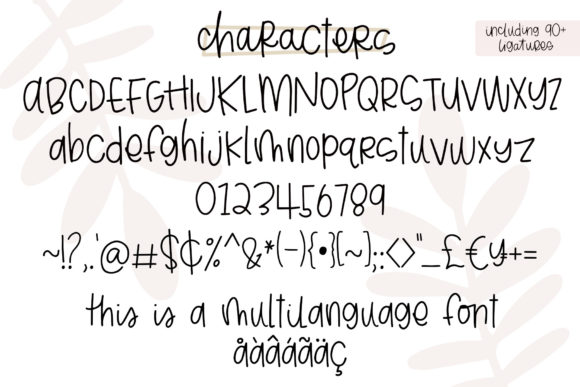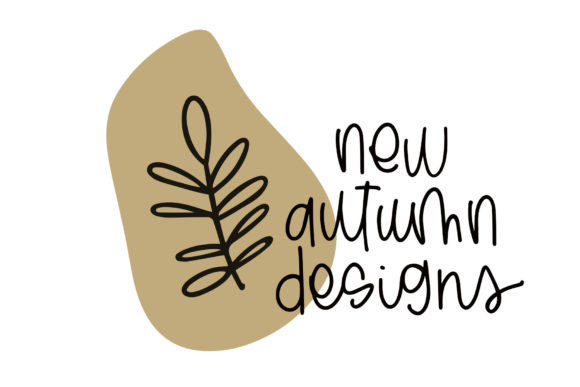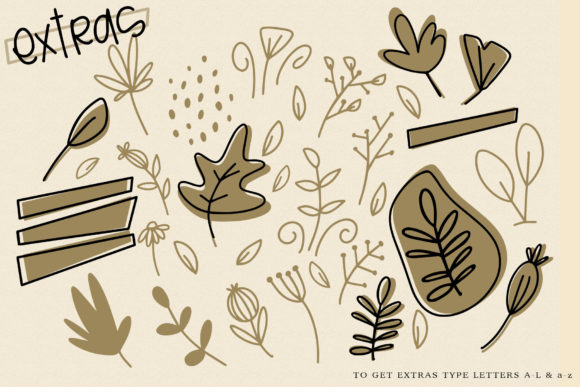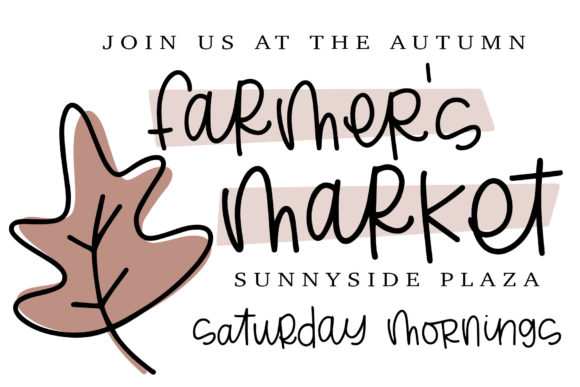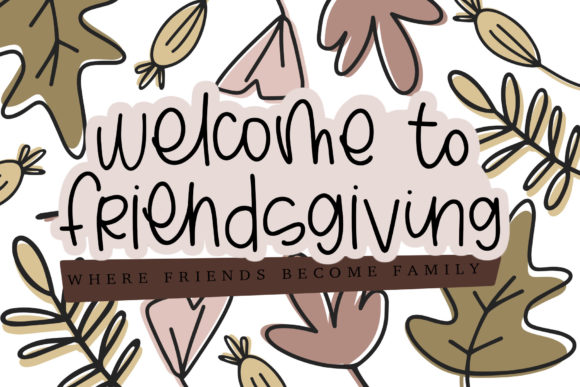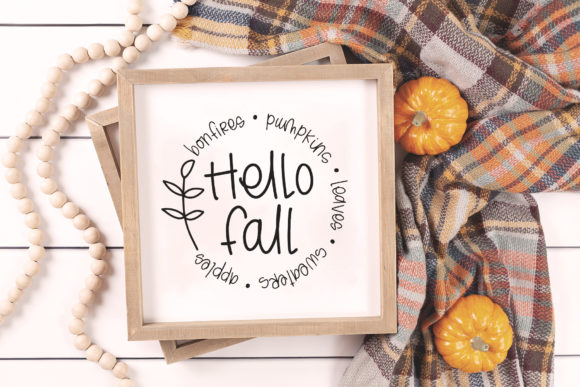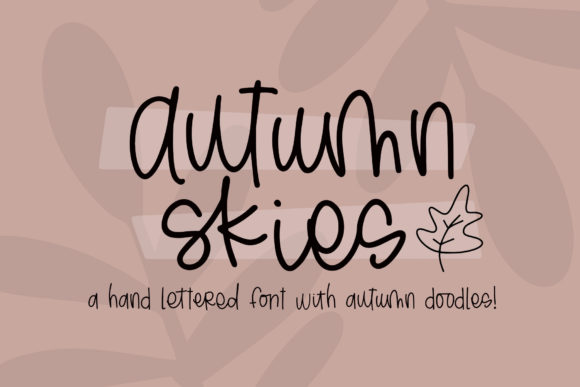
Introducing Autumn Skies Font: A Whimsical Script Font for Your Creative Projects
Are you a designer, crafter, or creative looking for a font that can add a touch of whimsy and elegance to your projects? Look no further than the Autumn Skies Font. This beautiful script font features a relaxed theme and a lovely style that is sure to elevate any creation.
What is Autumn Skies Font?
Autumn Skies Font is a digital font designed to capture the essence of a crisp autumn day. With its flowing script and carefree vibe, this font is perfect for a wide range of creative projects, from invitations and greeting cards to blog posts and social media graphics.
Key Features of Autumn Skies Font
- Whimsical Script Style: Autumn Skies Font features a beautiful, handwritten script style that is both elegant and playful.
- Relaxed Theme: The font’s relaxed theme makes it perfect for creating designs that feel casual and approachable.
- Highly Versatile: Whether you’re working on a personal project or a client’s, Autumn Skies Font can be used for a wide range of applications, from digital graphics to print materials.
- Easily Readable: Despite its whimsical nature, Autumn Skies Font is highly readable, even at smaller sizes.
Why You’ll Love Autumn Skies Font
So, what sets Autumn Skies Font apart from other fonts on the market? Here are just a few reasons why you’ll love adding this font to your library:
- Unique Style: Autumn Skies Font has a unique, one-of-a-kind style that will help your designs stand out from the crowd.
- Ease of Use: This font is incredibly easy to use, even for those who are new to design or not tech-savvy.
- Time-Saving: With Autumn Skies Font, you can create beautiful designs in a fraction of the time it would take with other fonts.
- Constantly Updated: The creators of Autumn Skies Font are committed to updating and improving the font, ensuring that it stays relevant and fresh.
How to Use Autumn Skies Font in Your Designs
Now that you know more about Autumn Skies Font, let’s talk about how to use it in your designs. Here are a few ideas to get you started:
- Invitations and Greeting Cards: Use Autumn Skies Font to create beautiful, one-of-a-kind invitations and greeting cards for special occasions.
- Blog Posts and Social Media Graphics: Add a touch of whimsy to your blog posts and social media graphics with Autumn Skies Font.
- Branding and Packaging: Use Autumn Skies Font to create custom branding and packaging for your business or a client’s.
- DIY Projects: Add a personal touch to your DIY projects, such as handmade crafts or home decor items, with Autumn Skies Font.
Tips for Getting the Most Out of Autumn Skies Font
To get the most out of Autumn Skies Font, here are a few tips to keep in mind:
- Pair with Other Fonts: Autumn Skies Font pairs well with a variety of other fonts, so don’t be afraid to get creative and try out different combinations.
- Use it Consistently: To create a cohesive look, use Autumn Skies Font consistently throughout your design.
In conclusion, Autumn Skies Font is a beautiful, whimsical script font that is sure to elevate any creative project. With its relaxed theme, lovely style, and highly versatile nature, this font is perfect for designers, crafters, and creatives of all levels. Whether you’re working on a personal project or a client’s, Autumn Skies Font is an incredibly valuable asset to have in your font library.